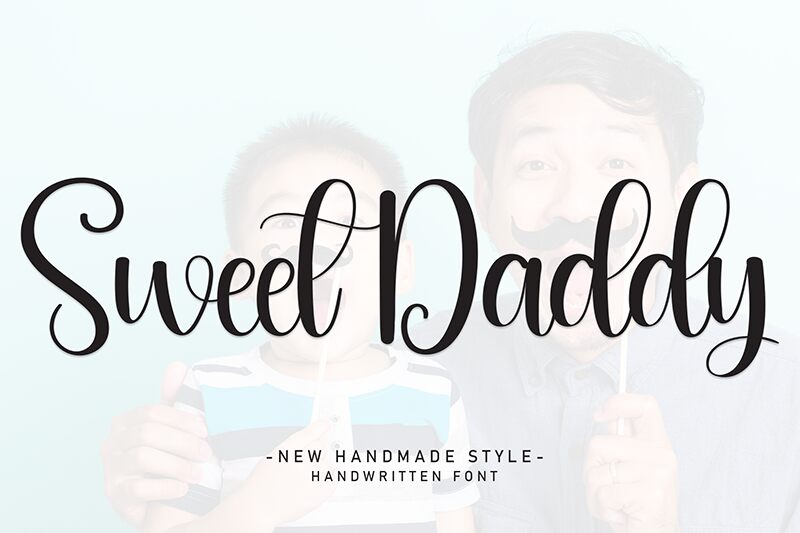
Sweet Daddy
Sweet Daddy font by Andi Moz is an elegant calligraphy font that captures a flowing and whimsical design inspired by signature styles. Its romantic and expressive appearance makes it an ideal choice for creating an artistic yet formal tone in your project.
Being a free calligraphy font, Sweet Daddy can be used in wedding invitations, greeting cards, logos, branding projects, social media posts or banners. In addition, it fits book covers, headline purposes in fashion magazines or brochures and stores undeniably stylish everyday handwriting fonts.